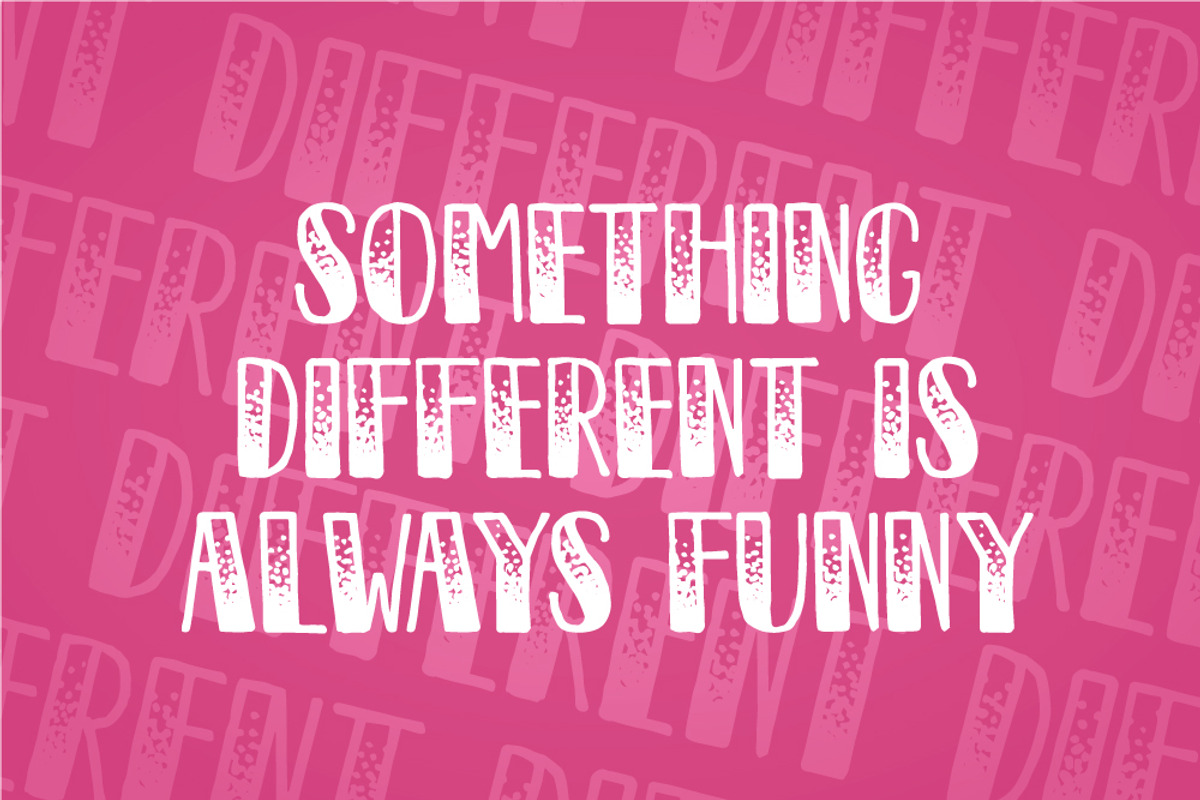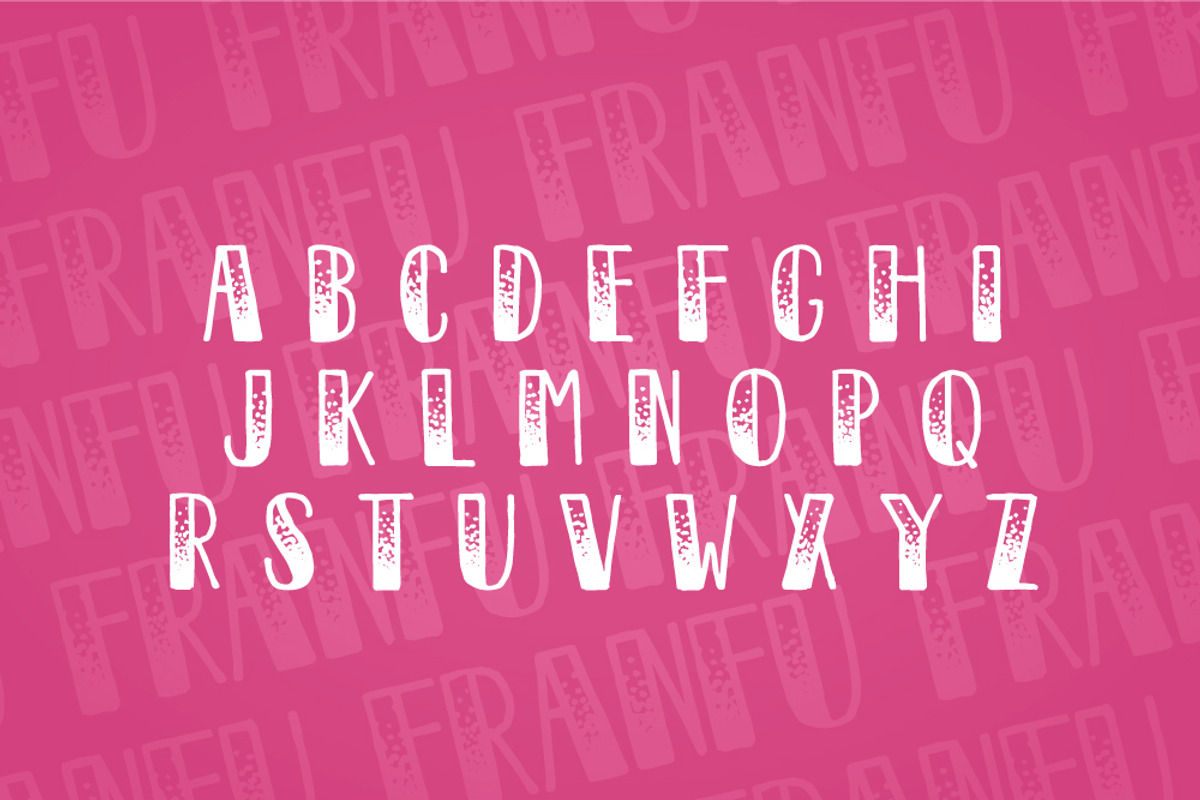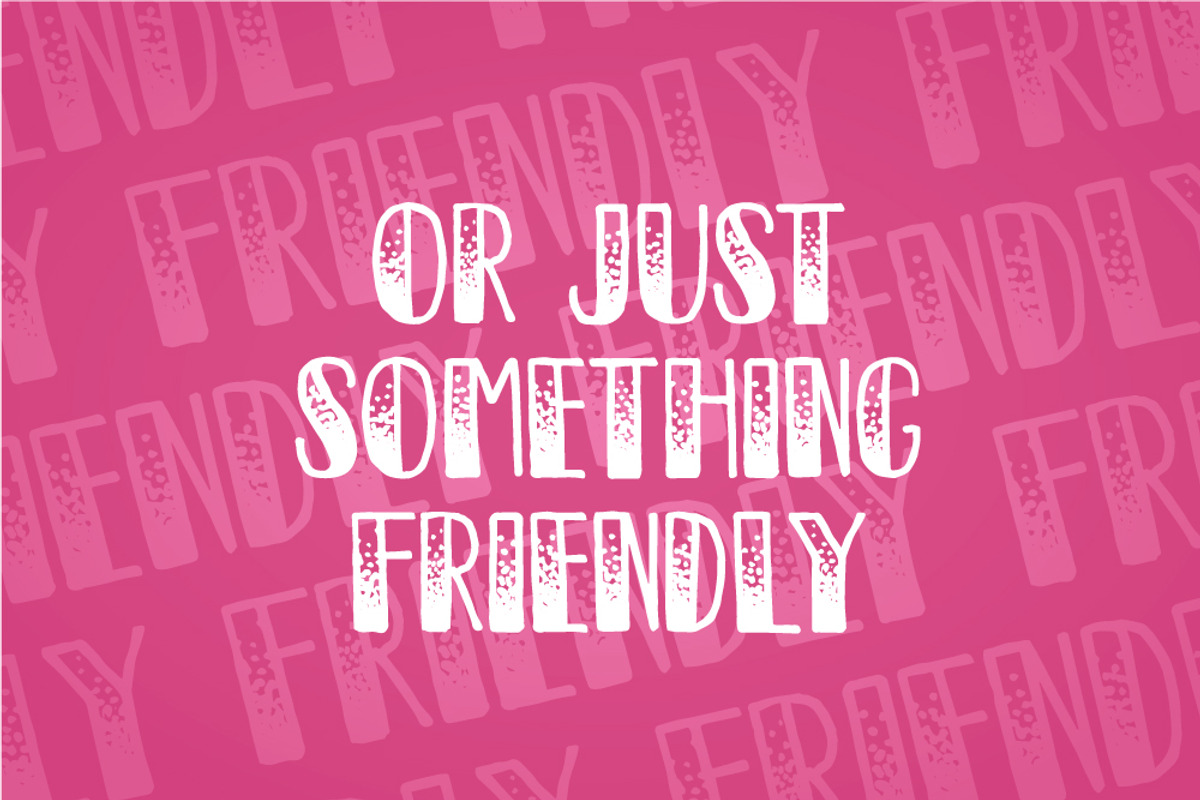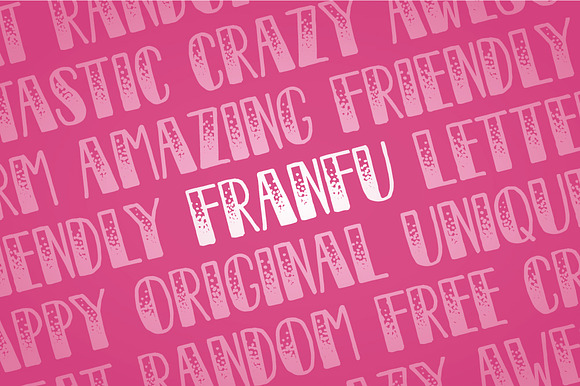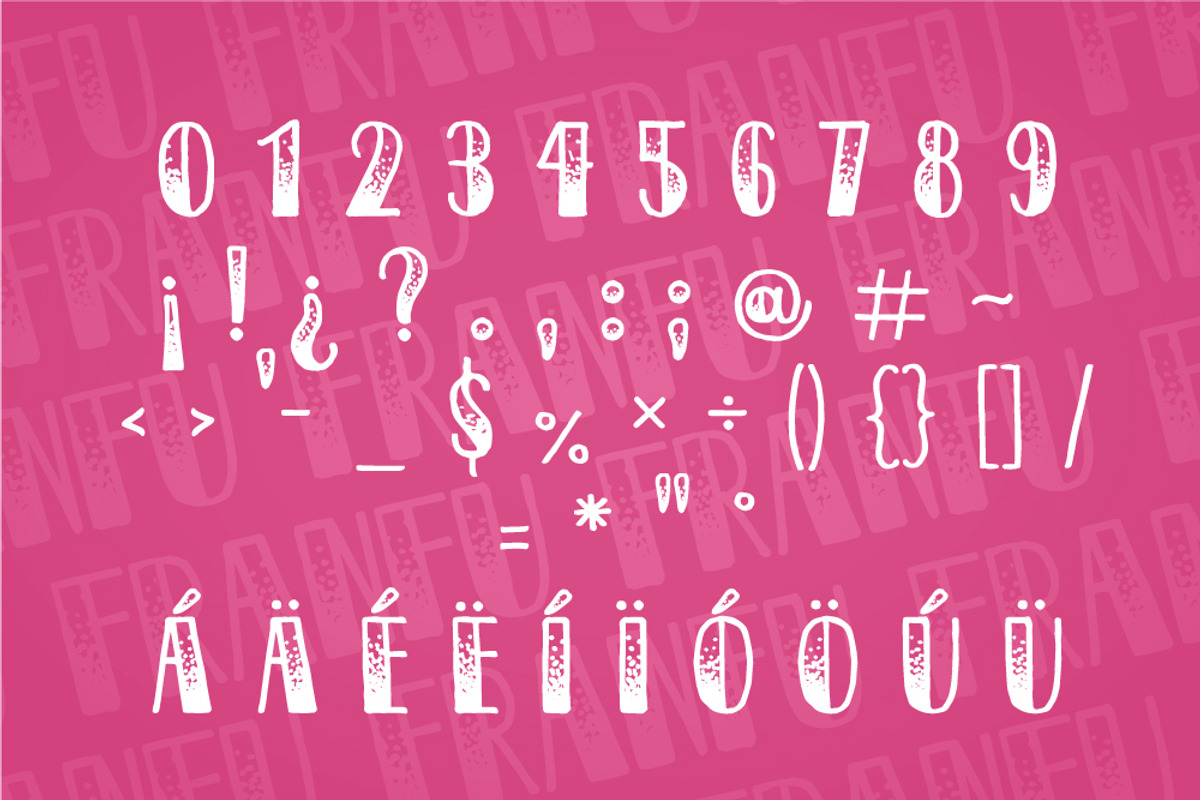
Franfu - font
Franfu is a different font, friendly and unique. You can use it in anything you want, it will always be fine.
Punctuation & numerals
Multi-language characters
Franfu - font by Franco Fuentes fits naturally into Branding, posters, packaging, typography.